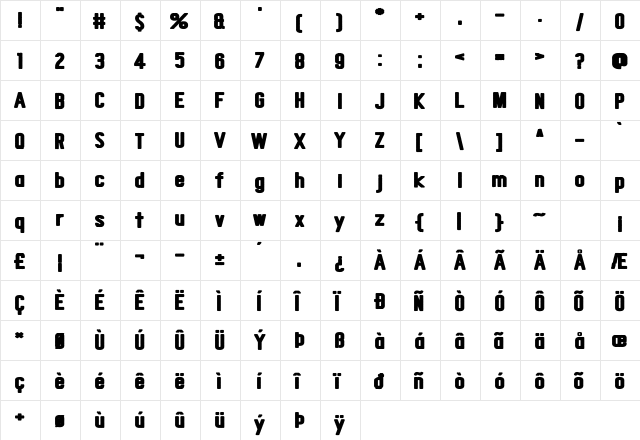
Snow Deep Regular
Design Context for Snow Deep Typeface
Snow Deep is a composed and adaptable typeface that performs quietly and consistently across a wide range of design contexts.